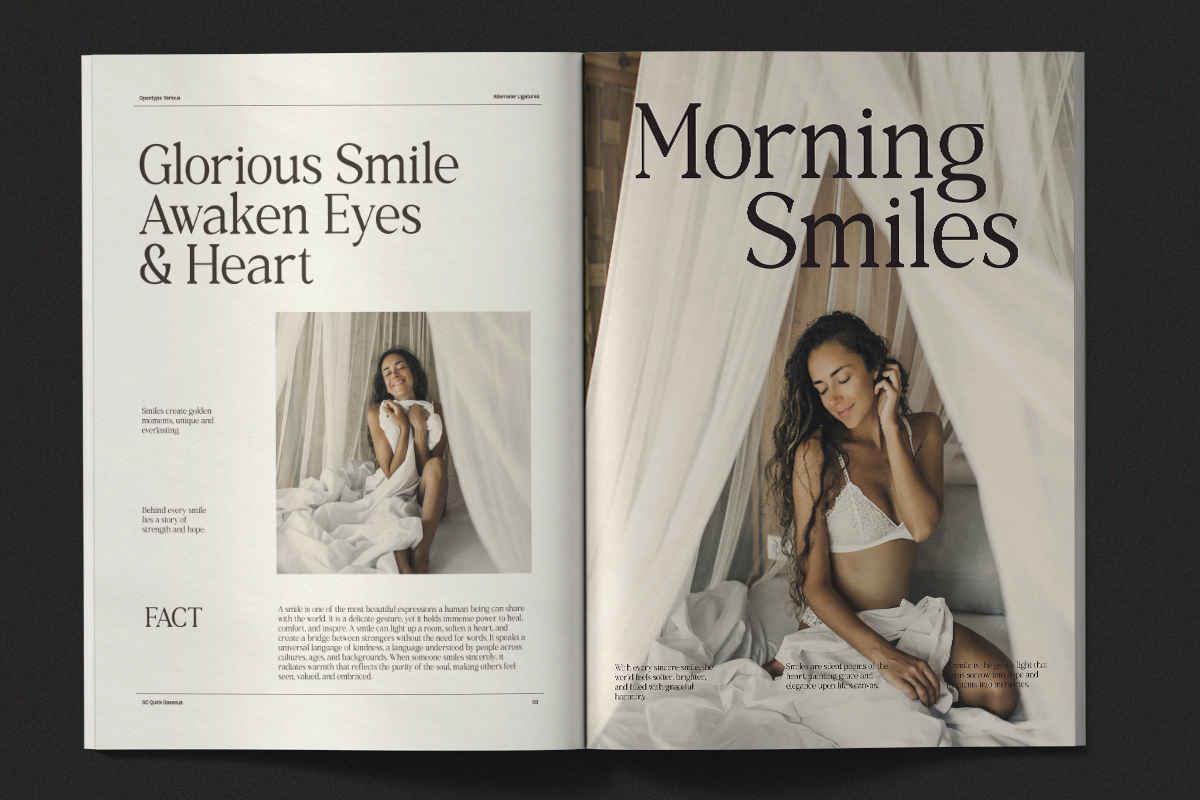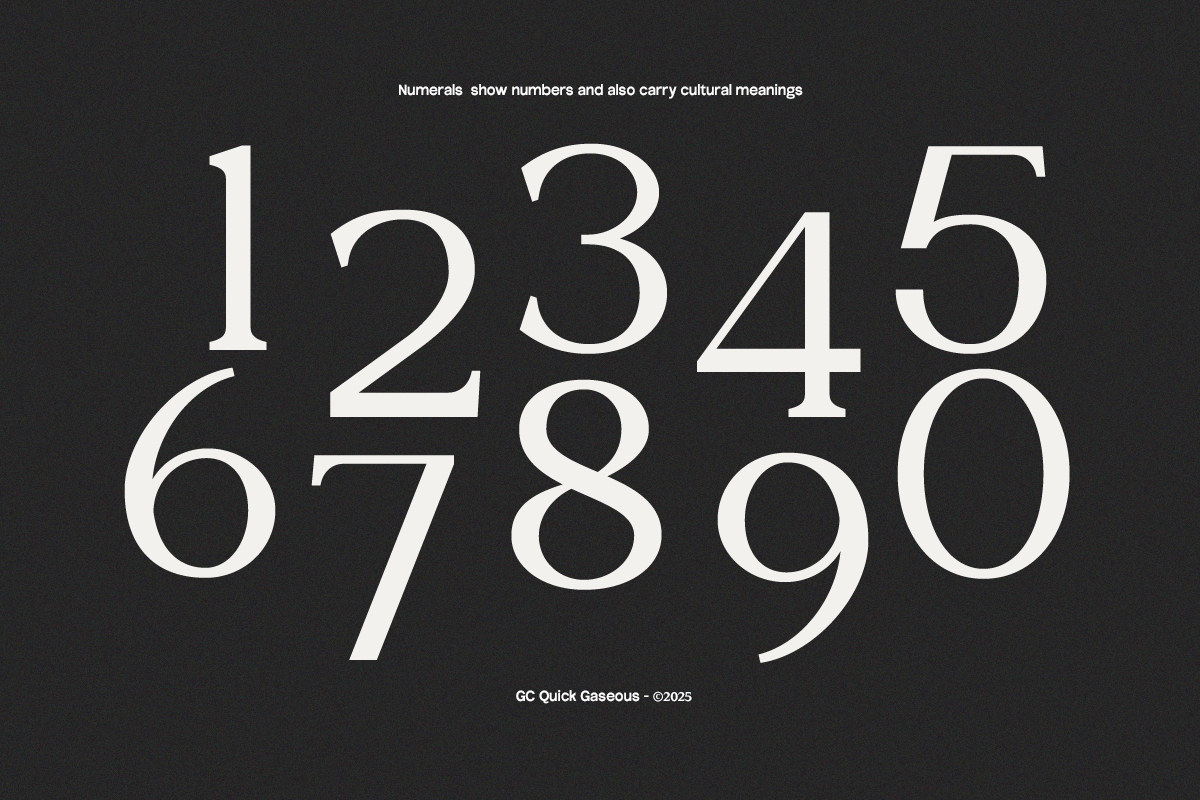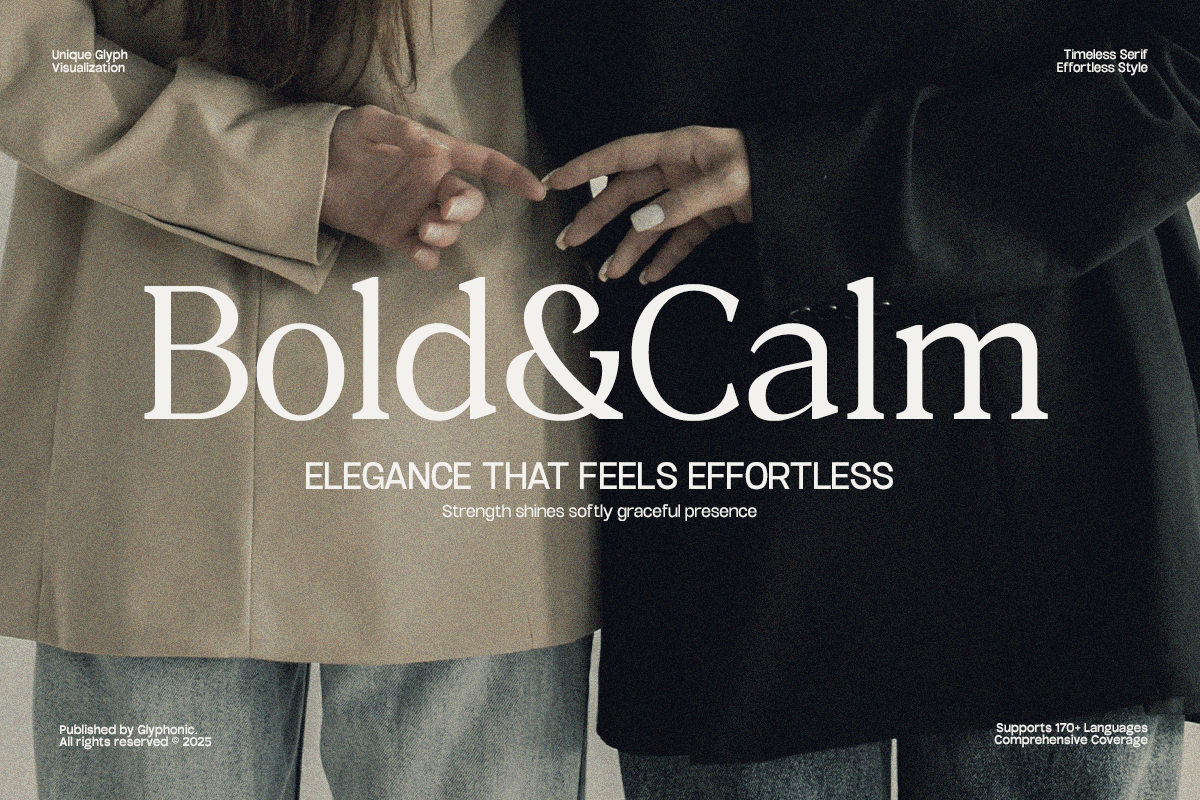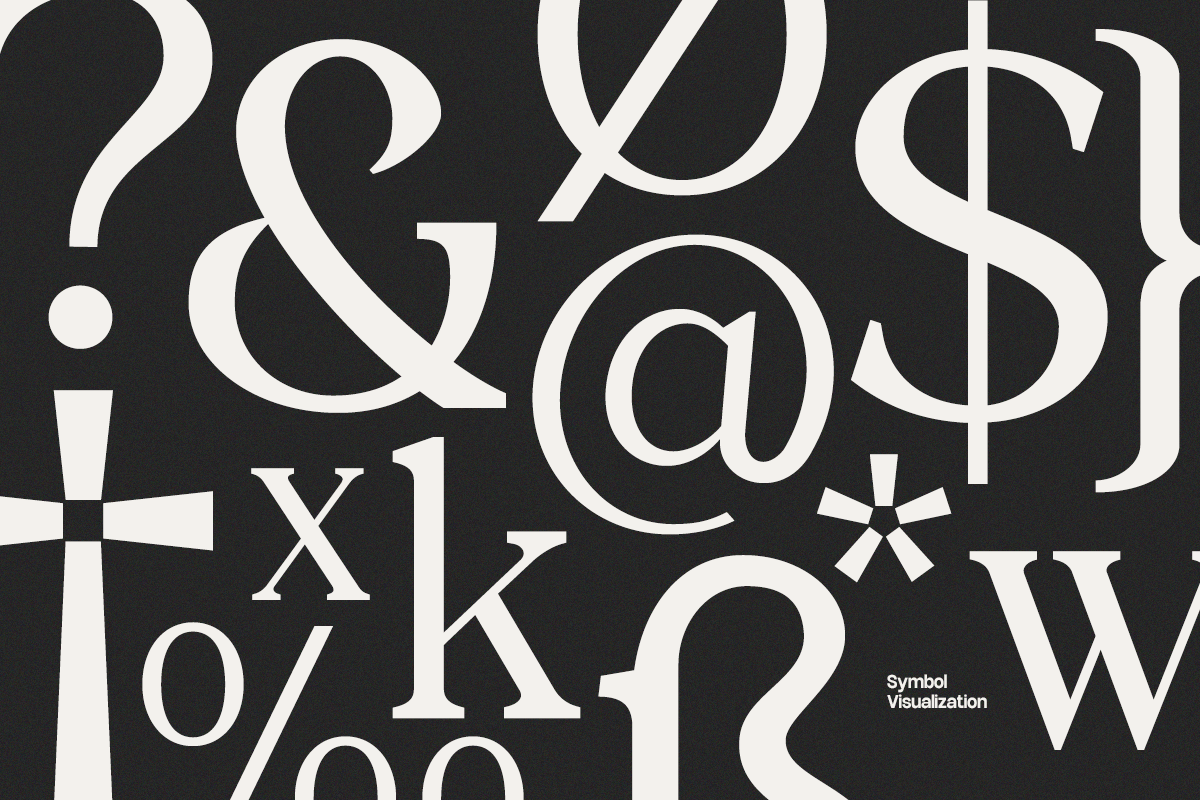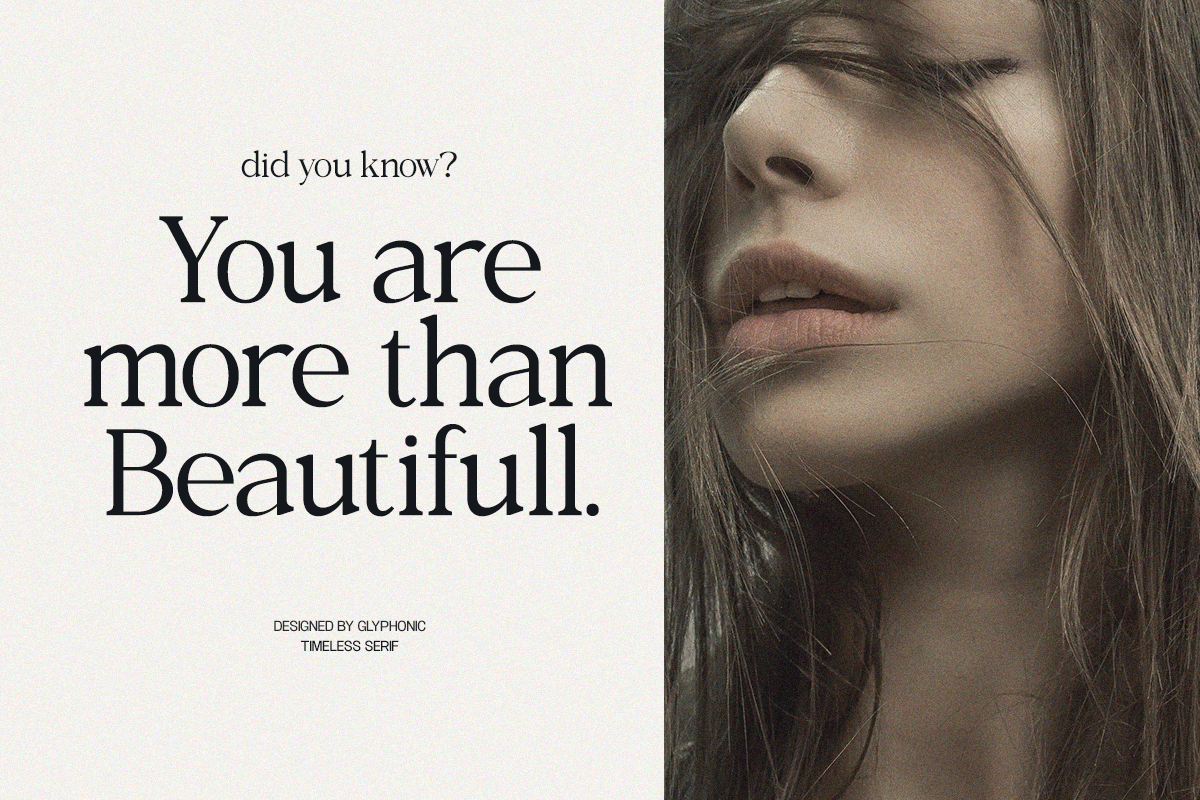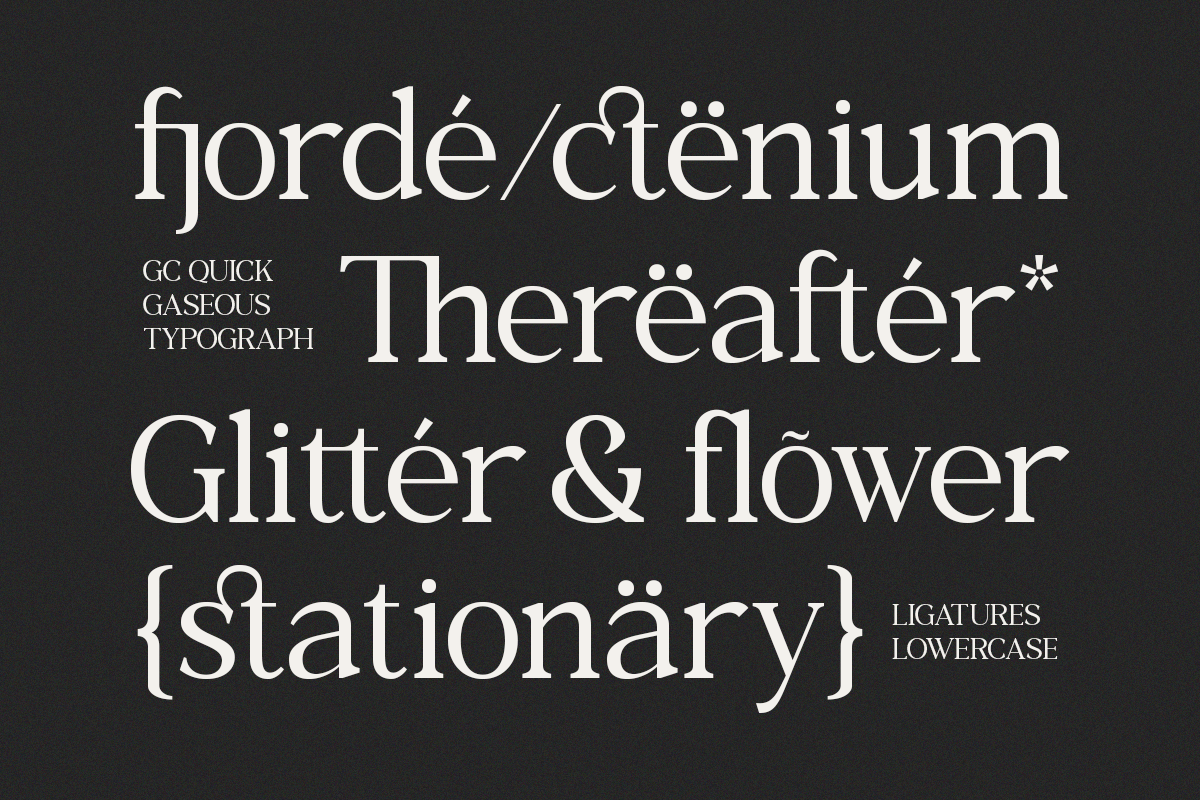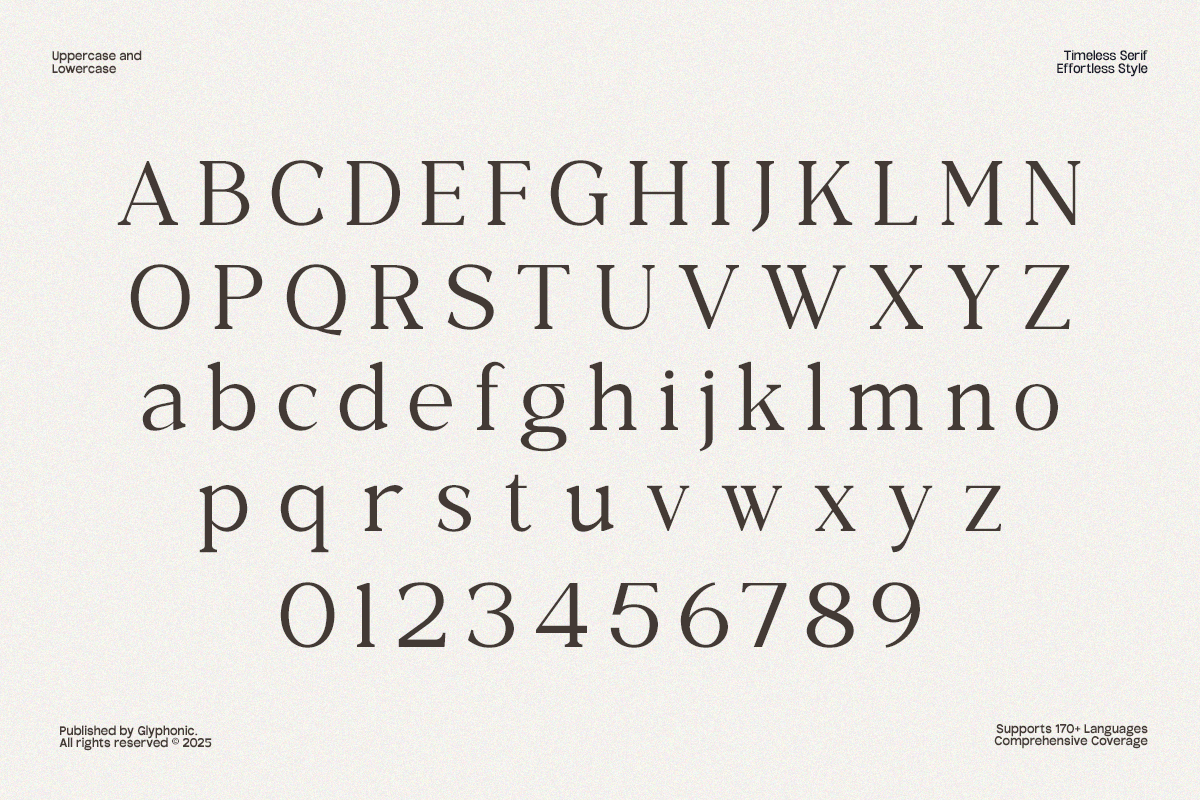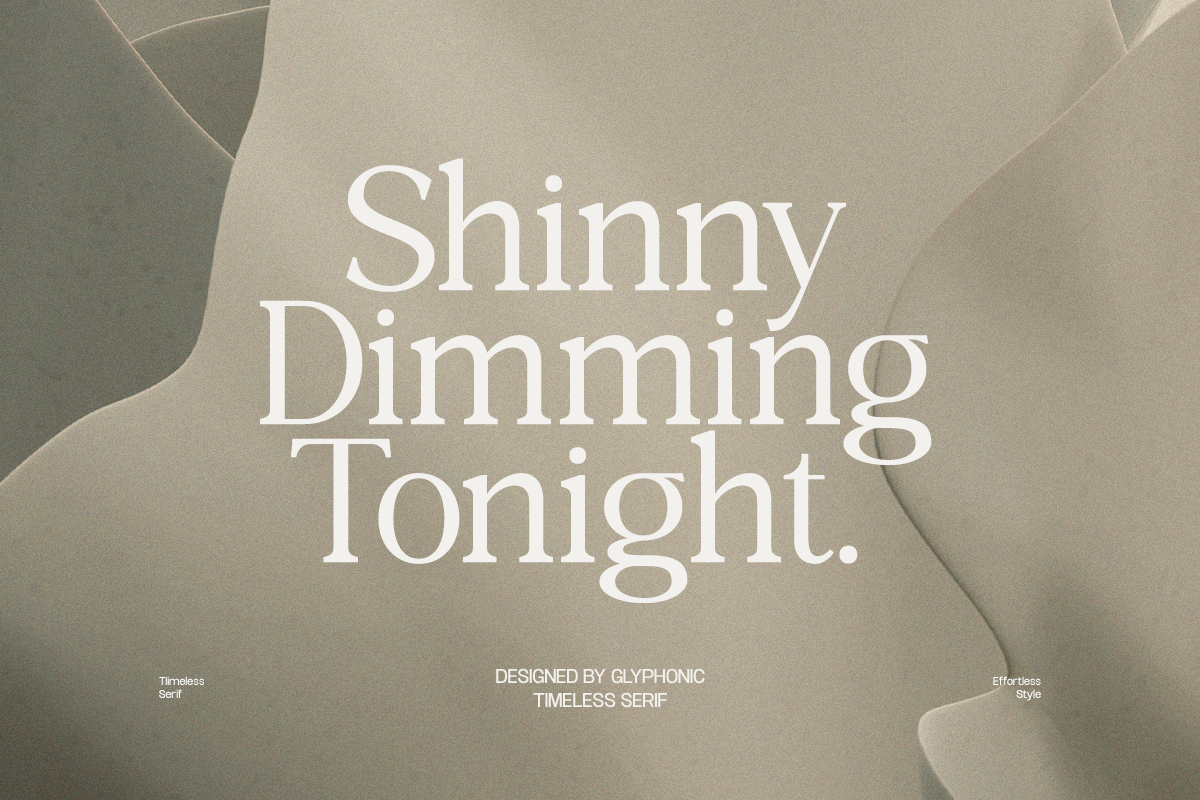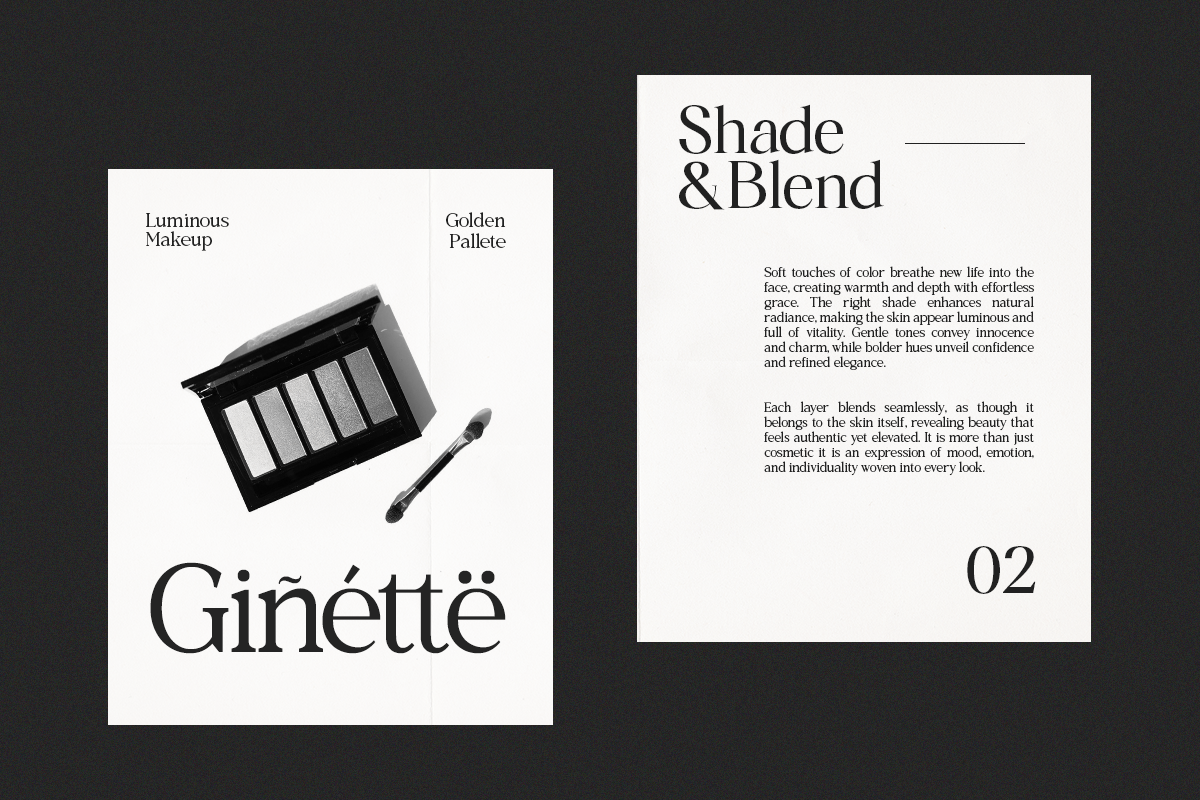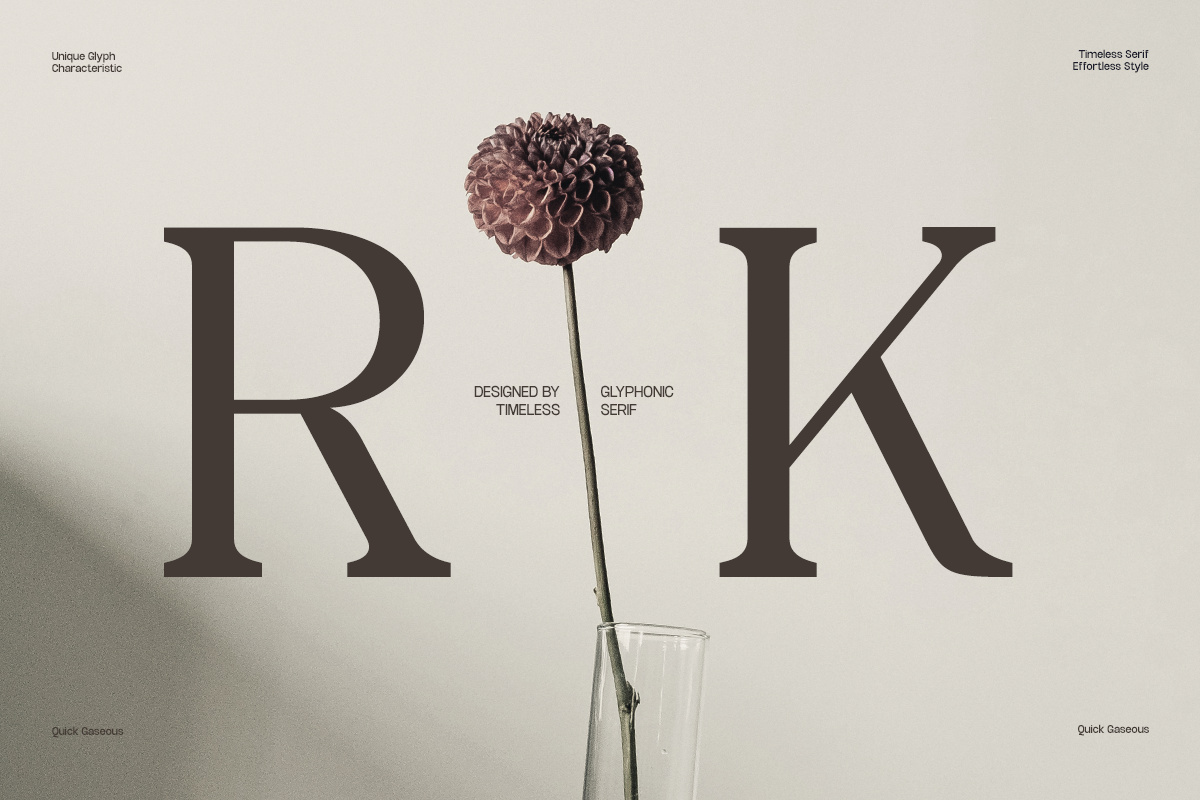
GC Quick Gaseous – Elegant Serif
GC Quick Gaseous — Elegant Serif is a refined serif typeface crafted to combine timeless charm with modern sophistication. Featuring graceful curves, balanced proportions, and elegant contrasts, it delivers a distinctive voice that flows seamlessly across both digital and print media. Designed to embody elegance without sacrificing readability, it’s perfect for branding, editorial layouts, packaging, invitations, and refined visual identities.
With its harmonious structure and precise detailing, GC Quick Gaseous adapts effortlessly while retaining its character. Whether you’re working on stylish headlines, elegant posters, or sophisticated brand expressions, this font brings timeless beauty, clarity, and refinement to your typography.
- Elegant Serif Construction
- Multilingual Support (170+ Languages)
Bring timeless elegance and refined sophistication to your designs with GC Quick Gaseous.